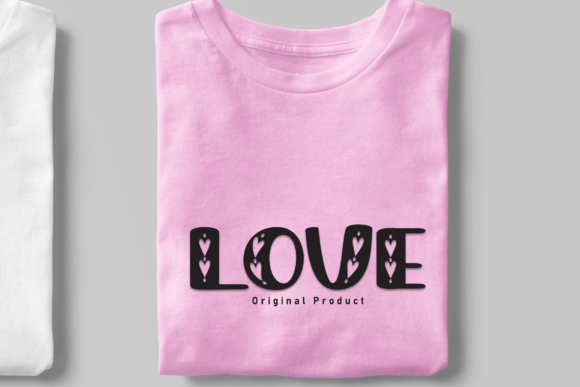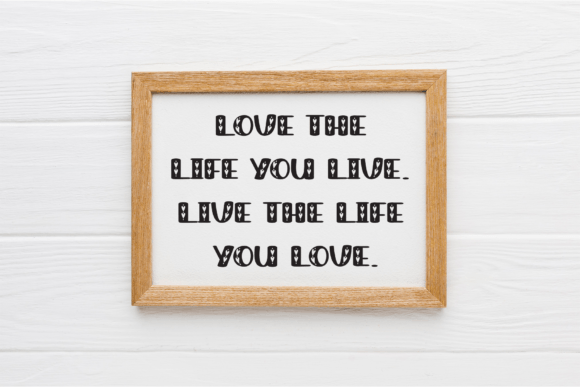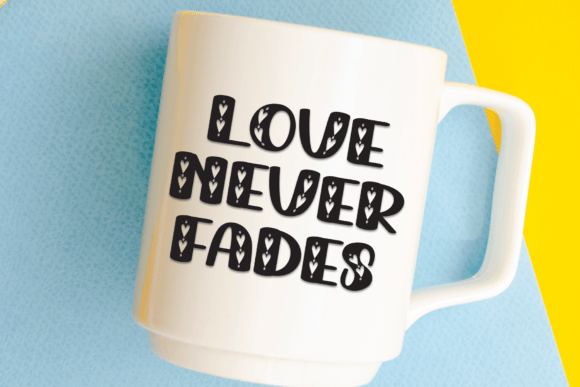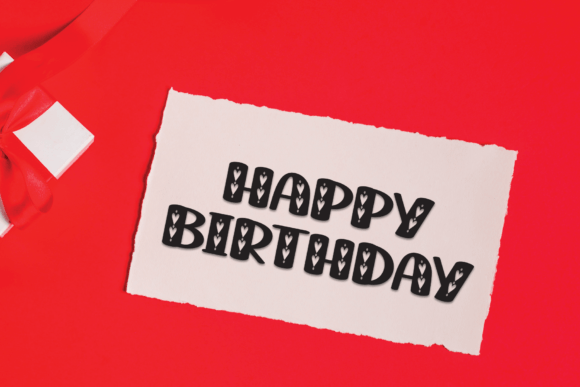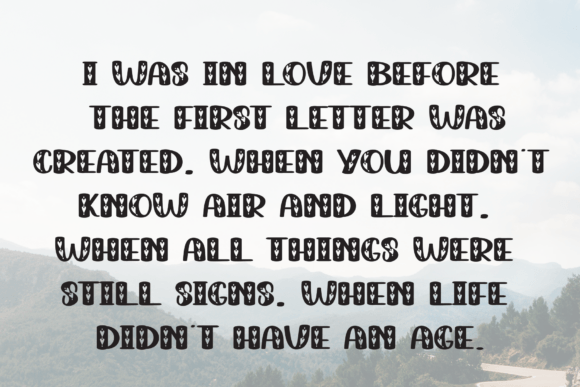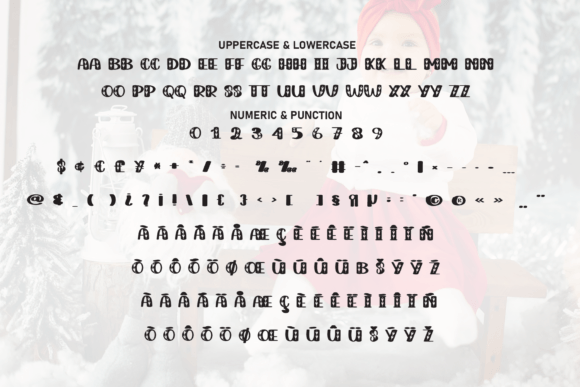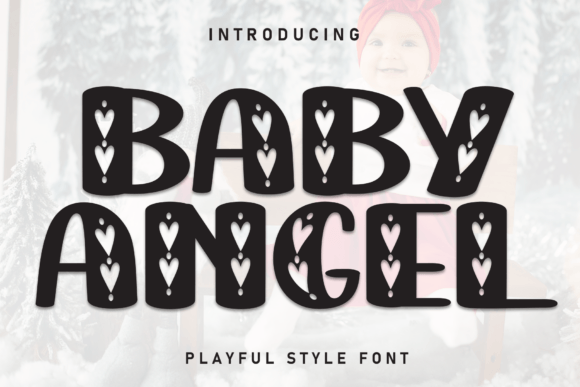
Baby Angel Font: Adding a Touch of Whimsy and Warmth to Your Designs
Are you looking for a font that can add a dash of fun and playfulness to your designs? Look no further than the Baby Angel Font, a whimsically handwritten display font that is sure to capture the hearts of your audience. With its warm and sweet demeanor, this exquisite font is perfectly suited for crafting whimsical wedding invitations, heartfelt cards, or any design project that yearns for an engrossing touch of fun.
The Unique Charm of Baby Angel Font
The Baby Angel Font exudes a unique charm that enlivens and enhances the message it conveys, establishing an unforgettable connection with the end recipient. Its delicate and intricate strokes, combined with its playful and carefree nature, make it the perfect choice for designers and crafters who want to add a touch of personality to their work. Whether you’re creating a wedding invitation, a greeting card, or a social media graphic, this font is sure to make your design stand out from the crowd.
Perfect for Whimsical Wedding Invitations and Heartfelt Cards
The Baby Angel Font is particularly well-suited for crafting whimsical wedding invitations and heartfelt cards. Its romantic and playful nature makes it the perfect choice for couples who want to add a touch of personality to their wedding stationery. Imagine creating a beautiful wedding invitation with this font, complete with intricate details and sweet illustrations. The result is a truly unique and memorable invitation that sets the tone for a magical and unforgettable wedding celebration.
Bringing Fun and Playfulness to Your Designs
The Baby Angel Font is not just limited to wedding invitations and cards. It’s also perfect for any design project that yearns for an engrossing dash of fun. Whether you’re creating a social media graphic, a flyer, or a poster, this font is sure to add a touch of playfulness and whimsy to your design. Its unique and eye-catching style makes it perfect for designers and crafters who want to create designs that stand out from the crowd and capture the attention of their audience.
Why Choose Baby Angel Font?
So why choose the Baby Angel Font for your next design project? Here are just a few reasons why this font stands out from the rest:
- Unique and eye-catching style: The Baby Angel Font has a unique and eye-catching style that is sure to capture the attention of your audience.
- Warm and sweet demeanor: This font has a warm and sweet demeanor that makes it perfect for creating heartfelt and emotional connections with your audience.
- Perfect for whimsical and playful designs: The Baby Angel Font is perfect for creating whimsical and playful designs that are sure to bring a smile to the face of your audience.
- Versatile and easy to use: This font is versatile and easy to use, making it perfect for a wide range of design projects.
Tips for Using Baby Angel Font
Here are a few tips for using the Baby Angel Font in your next design project:
- Use it for headings and titles: The Baby Angel Font is perfect for headings and titles, where its unique and eye-catching style can really shine.
- Pair it with complementary fonts: Consider pairing the Baby Angel Font with complementary fonts to create a unique and visually appealing design.
- Experiment with different colors and textures: Don’t be afraid to experiment with different colors and textures to add depth and interest to your design.
- Use it to add a personal touch: The Baby Angel Font is perfect for adding a personal touch to your designs, whether you’re creating a wedding invitation or a social media graphic.
In conclusion, the Baby Angel Font is a unique and eye-catching font that is sure to add a touch of whimsy and warmth to your designs. With its warm and sweet demeanor, this exquisite font is perfectly suited for crafting whimsical wedding invitations, heartfelt cards, or any design project that yearns for an engrossing dash of fun. Whether you’re a designer or crafter, this font is sure to inspire you to create designs that are truly unforgettable.